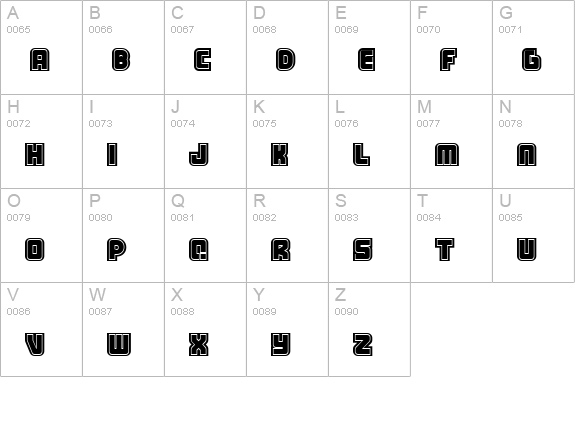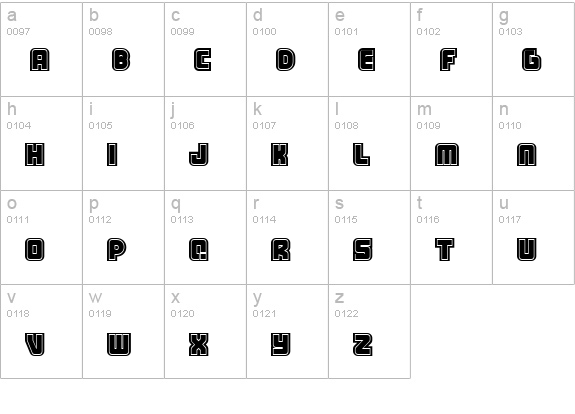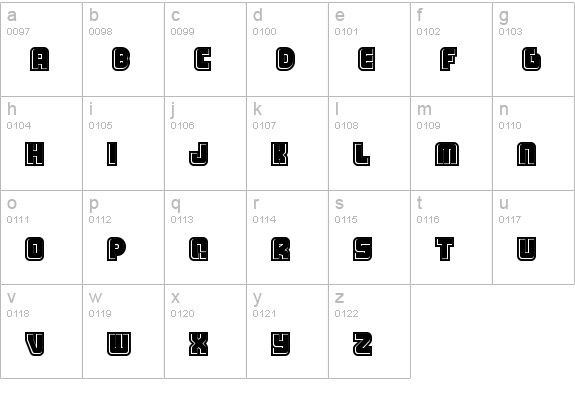
samarin Font Details
Introducing Samarin Font - a stylish and versatile typeface that combines elegance with a touch of modernity. This beautiful font is perfect for adding a sophisticated and refined look to any project, whether it's for branding, logos, invitations, or headlines. Samarin Font features a unique blend of classic letterforms and contemporary design elements, resulting in a truly distinctive and eye-catching aesthetic. Its clean lines and graceful curves make it effortlessly legible, ensuring that your message is conveyed with utmost clarity. What sets Samarin Font apart is not just its stunning design, but also the fact that it is completely free to download. Yes, you read that right - this exceptional font is freely available for download at FontsMarket.com. Now you can elevate your designs without breaking the bank, thanks to this generous offer. With Samarin Font, you have the freedom to create without limitations. Its extensive character set includes uppercase and lowercase letters, numerals, punctuation marks, and special characters, providing you with endless possibilities for creative expression. Whether you're a professional designer or a casual enthusiast, Samarin Font is a must-have in your typographic arsenal. Its versatility and elegance make it suitable for a wide range of projects, from print materials to digital designs. So why wait? Download Samarin Font for free at FontsMarket.com and unleash your creativity today. Experience the beauty and power of this remarkable typeface and take your designs to new heights. With Samarin Font, the possibilities are truly endless.